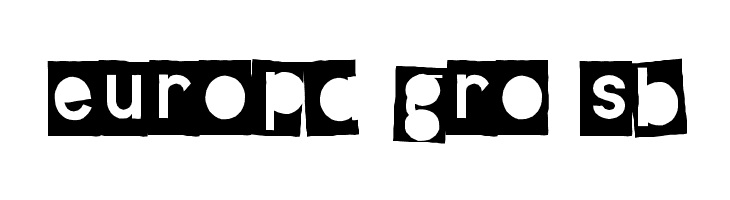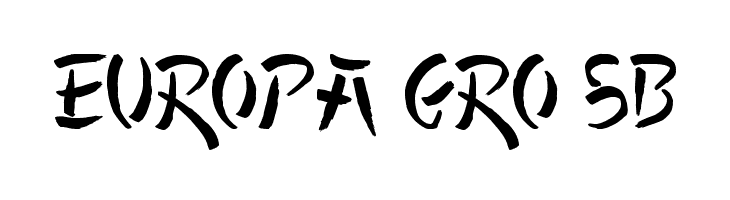
A bold, playful font with boxed characters and a hand-cut appearance.
A distressed, vintage-style font with a bold, weathered appearance.
A bold, brush-style font with dynamic, flowing strokes and artistic flair.
A bold, clear font ideal for signage and public notices.
An elegant, whimsical script font with flowing, interconnected strokes.
An elegant, flowing script font with a modern, handwritten style.
A traditional Arabic script with elegant, flowing calligraphic strokes.